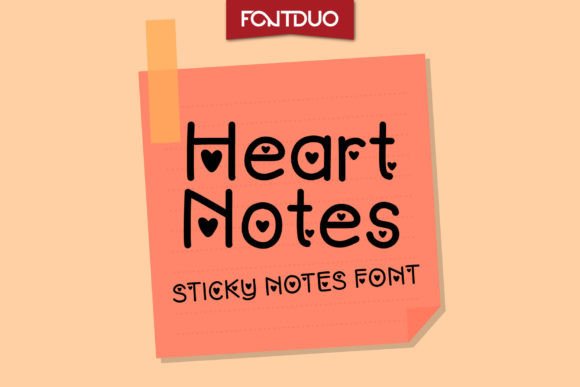
Introducing the captivating "Hearts Notes Font": A Font Duo Unlocking Creative Potential
Mesmerizing, captivating, and simply breathtaking, the "Hearts Notes Font" is not merely a collection of letters and symbols; it is an embodiment of artistry, enabling your creativity to flourish and your designs to sing. With every stroke, every flourish, and every curve, this font duo will enchant your eyes and enamor your heart.
Cuteness, Redefined:
In the realm of decorative typefaces, there lives a font so charming, so alluringly cute, that it instantly casts a spell upon the beholder. Its name? The "Hearts Notes Font Duo." Its nature? Unimaginably charming, guaranteed to infuse your designs with a sense of joy, light, and cuteness like never before. Prepare to be captivated by its irresistible charm, and watch as your words take on a new lease of grace and vibrance.
The Art of Versatility:
Unleash the font duo that defies limitation, adapting seamlessly across a myriad of projects, from dazzling product labels to heartwarming greeting cards. With grace and adaptability, it lends itself to a realm of creative expressions, allowing your imagination to flourish without bounds. Take it for a spin in your digital designs, let it grace your print projects, or watch it bring your web designs to life. The "Hearts Notes Font" knows no creative boundaries, only opportunities for you to shine.
Hearts Notes: An Artist's Soulmate
With every stroke, the "Hearts Notes Font Duo" whispers the promise of artistic excellence. It is a font that understands the artist's soul; it comprehends the depths and complexities of your creative spirit. The font duo becomes an extension of yourself, a medium through which your ideas and emotions find their voice. Prepare to be astounded as your designs reach new heights, their impact amplified by this remarkable font.
A Masterpiece of Creation: A Font Duo from FontDuo
"Hearts Notes Font" comes to you from FontDuo, the renowned foundry celebrated for its dedication to excellence. A product of meticulous handcraft, this font duo bears the mark of FontDuo's deep-rooted artistry and relentless attention to detail. From the graceful curlicues to the delicate balance of ascenders and descenders, every element of "Hearts Notes Font" reflects FontDuo's relentless pursuit of perfection.